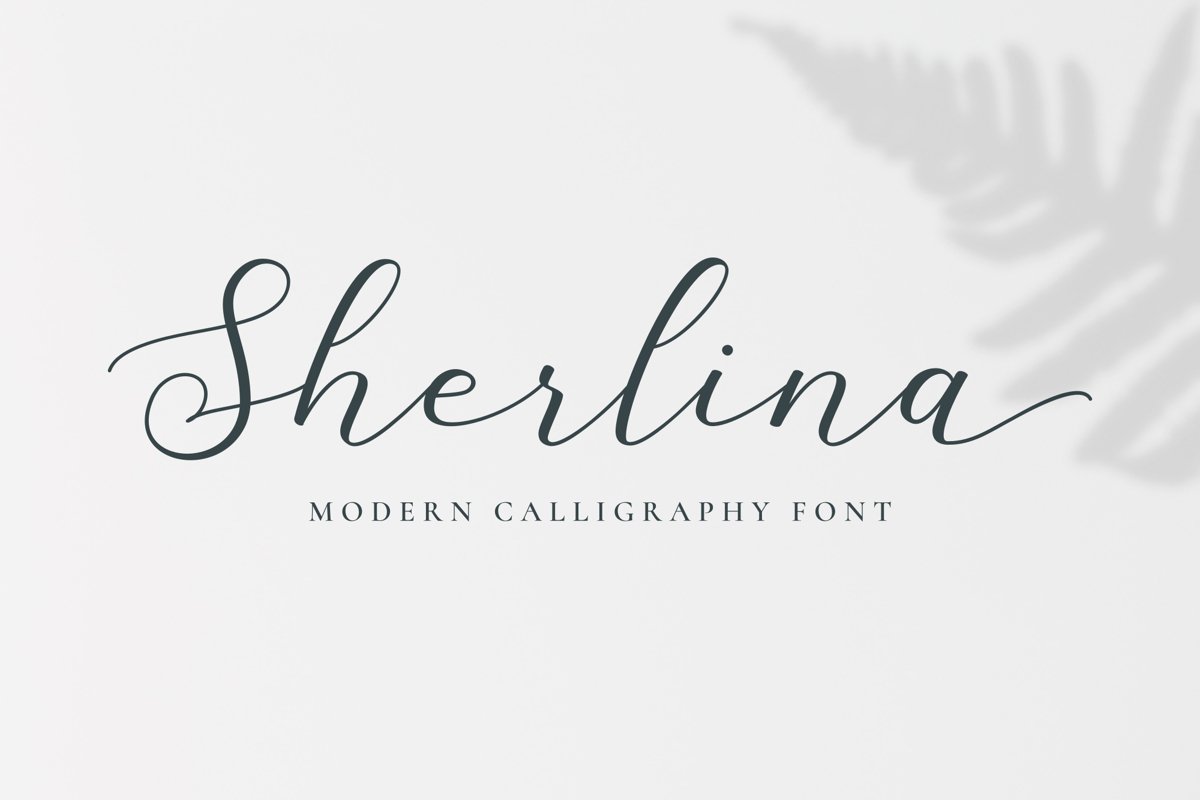
Sherlina
Sherlina is a modern calligraphy script font with a dancing flow baseline.
Good for creating logotype, wedding invitation design, signature, name card, poster or flyer.